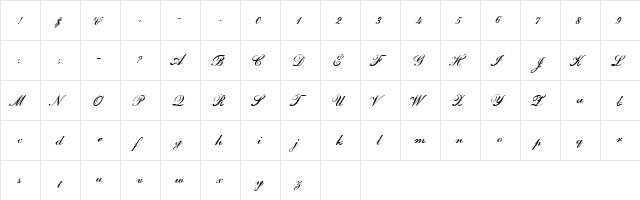
Typo Script HPLHS
| Year | 1923 |
Design Context for Typo Script Typeface
Typo Script brings a calligraphic fluidity to the page — its connecting strokes and expressive curves give it an unmistakably human quality.
Font Pairing: Combine Typo Script with a simple geometric sans for maximum contrast — the tension between flowing curves and clean structure is a classic typographic pairing.
Pro Tip: Pair Typo Script with a clean sans-serif for supporting text. The contrast between fluid script and geometric structure creates an elegant typographic hierarchy.